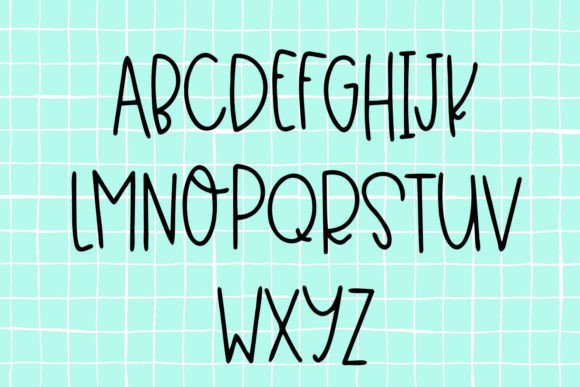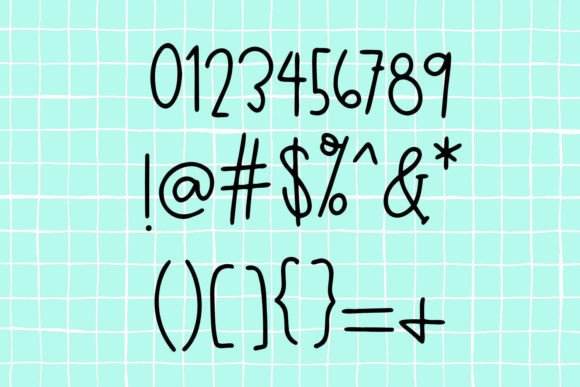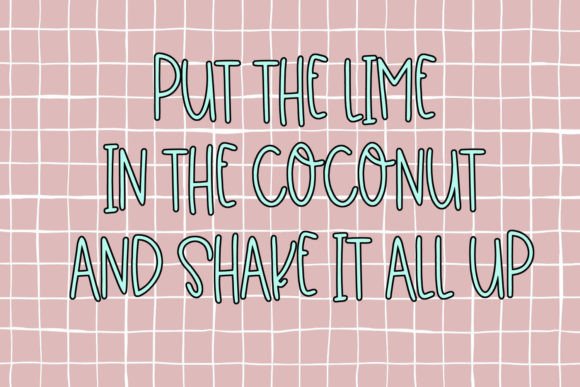
Introduction to Coconut Milk Font Font
Fonts play a crucial role in design, and the Coconut Milk Font font is a typeface that brings both character and versatility to any project. Whether you’re working on a branding project, a website, or a print design, the Coconut Milk Font font offers a unique style that can elevate your work.
Introducing Coconut Milk, a fun hand-written font.
With its whimsical and friendly look, Coconut Milk is perfect for your next crafting project, with smooth, cuttable nodes .
Key Features of Coconut Milk Font Font
Why Choose Coconut Milk Font Font?
The Coconut Milk Font font is more than just a typeface – it’s a design tool that helps you communicate your message with style and clarity. Its unique character set and versatile design make it suitable for a wide range of applications, from elegant invitations to bold headlines.
With its carefully crafted letterforms and balanced proportions, the Coconut Milk Font font ensures readability and visual appeal across all mediums.
What makes Coconut Milk Font font special?
The Coconut Milk Font font stands out with its unique design, exceptional readability, and versatility across various design applications.